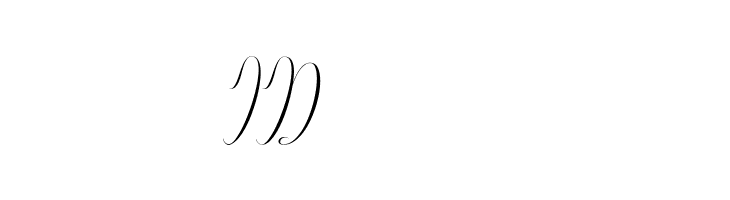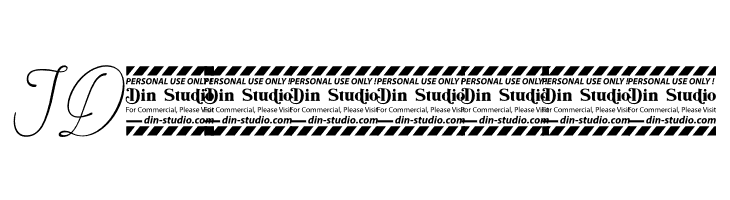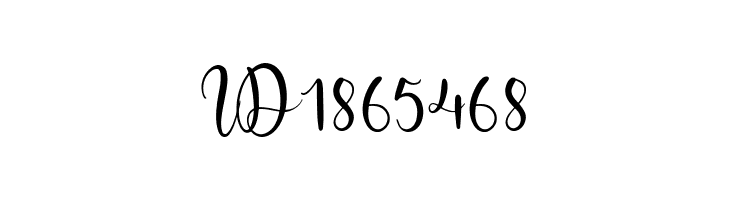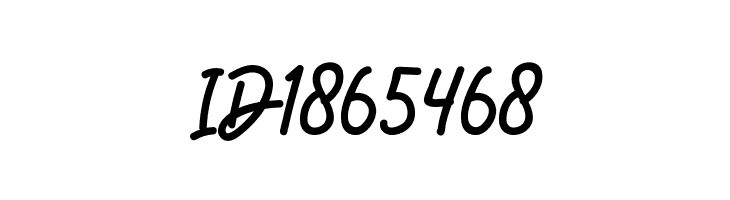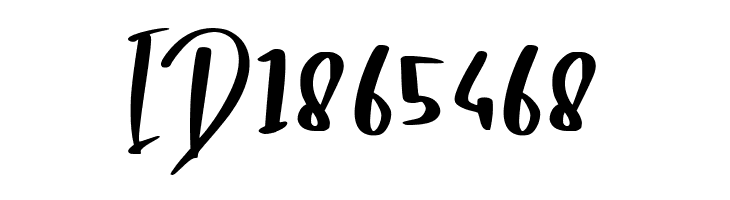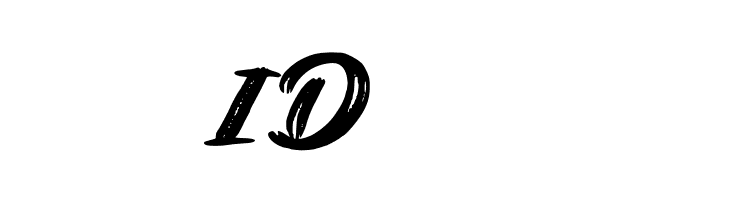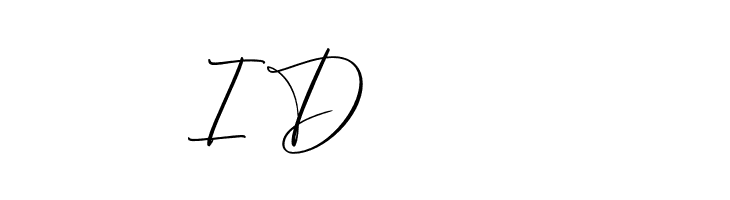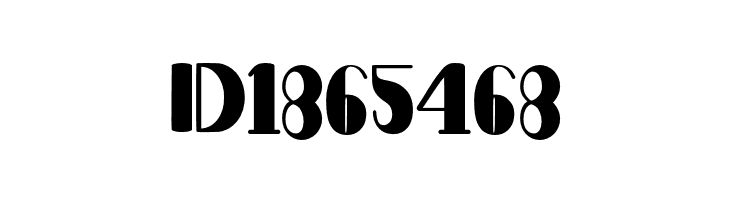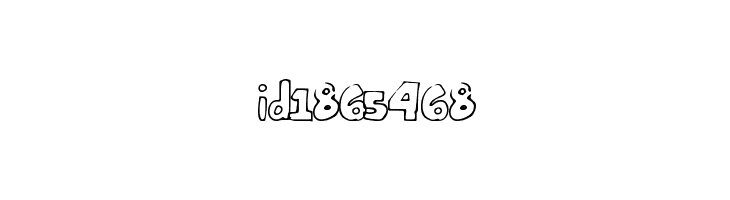
A playful and elegant script font with flowing, interconnected letters.
A playful and whimsical font with bold, slightly irregular letterforms.
An elegant, flowing script font with high contrast and sophisticated loops.
An elegant, flowing script font with a refined, calligraphic style.
A playful, hand-drawn font with bold, rounded outlines and a whimsical style.
A lively handwritten font with fluid, connected strokes and playful bounce.
A bold, playful font with geometric and organic elements.
A graceful script font with flowing, ornate letters and high contrast strokes.
A lively and expressive handwritten font with dynamic strokes.
A bold, brush script font with dynamic strokes and high contrast.